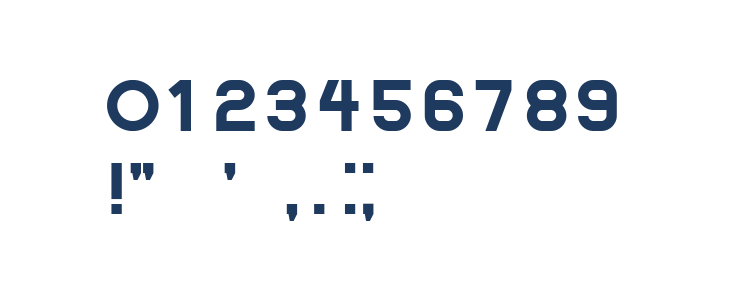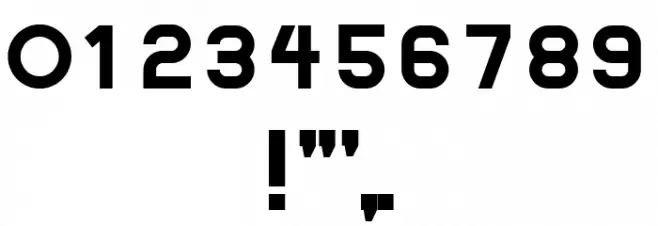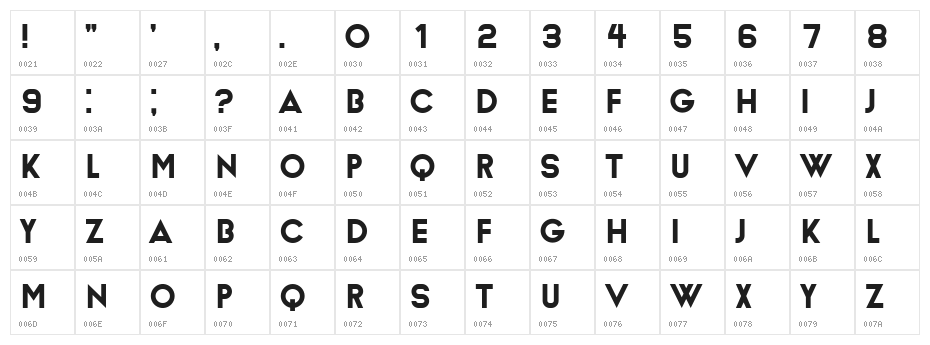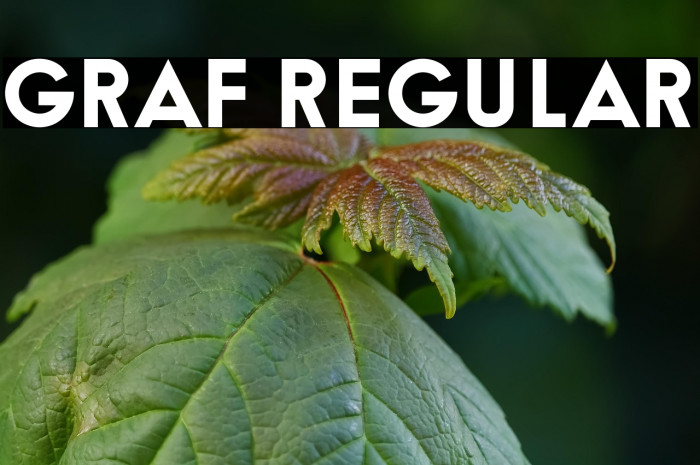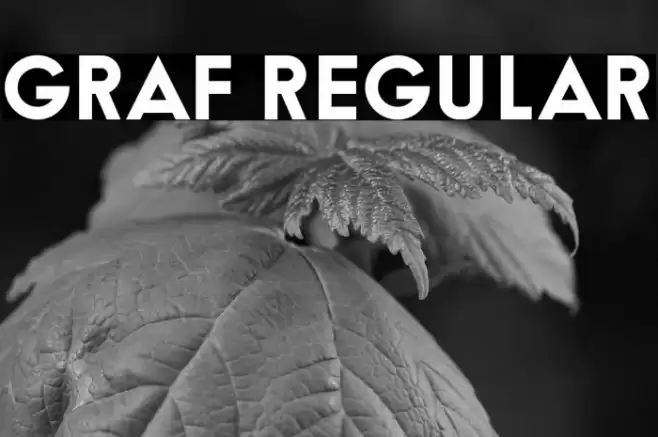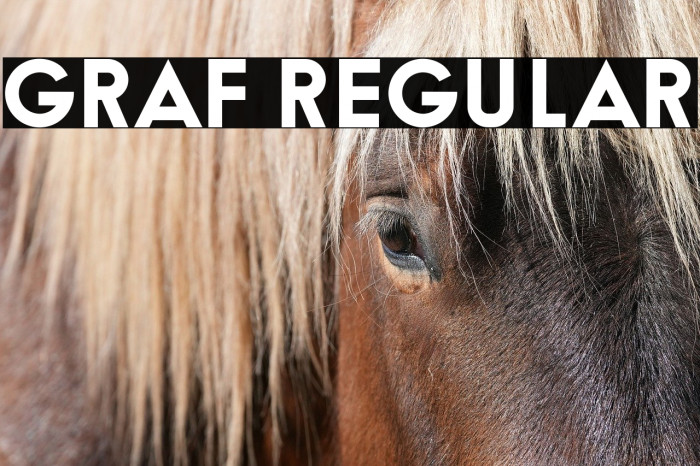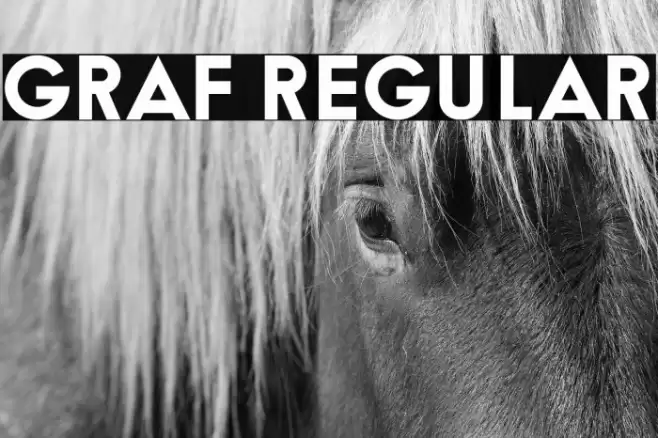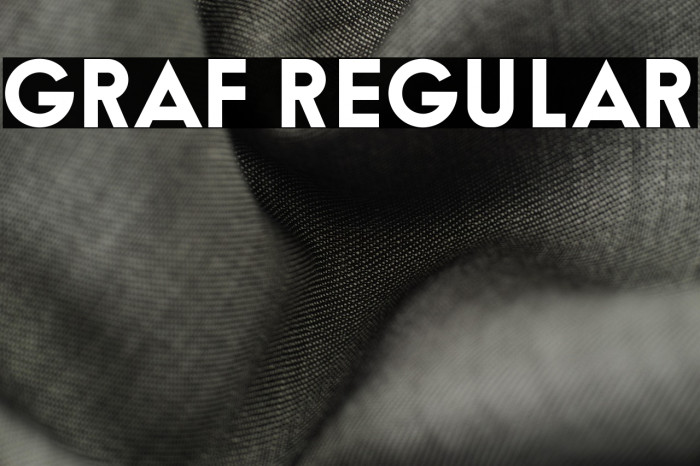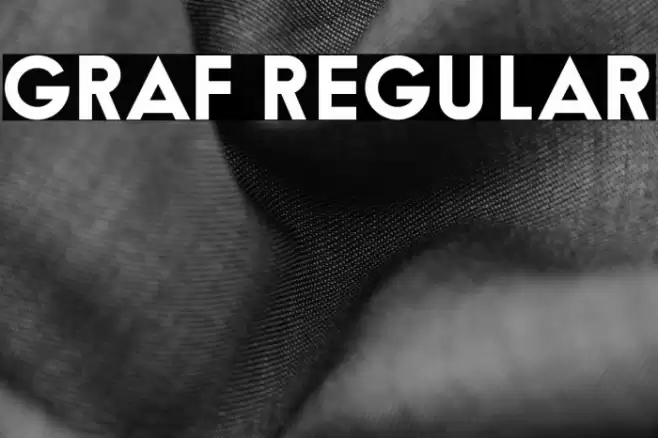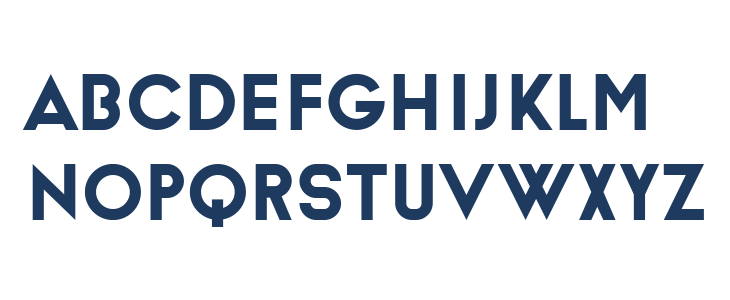
Graf Regular Font
Graf Regular Description
This font features a bold and modern design with clean, geometric lines that create a strong visual impact. The characters are evenly spaced, providing a balanced and harmonious appearance. The uppercase letters exhibit a uniform height, while the lowercase letters maintain a consistent style, enhancing readability. The numerals are distinct and clear, making them suitable for various applications. The special characters are designed to complement the overall aesthetic, ensuring versatility in usage. This font is ideal for projects that require a contemporary and professional look.